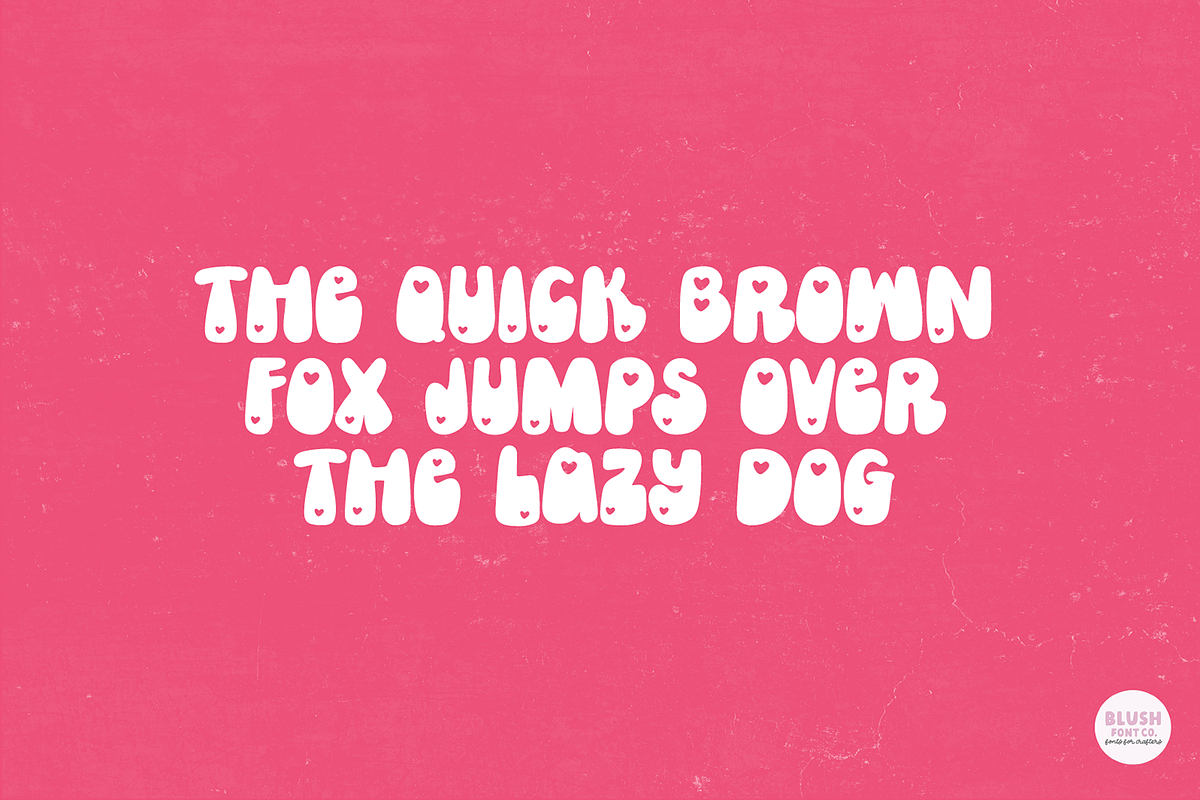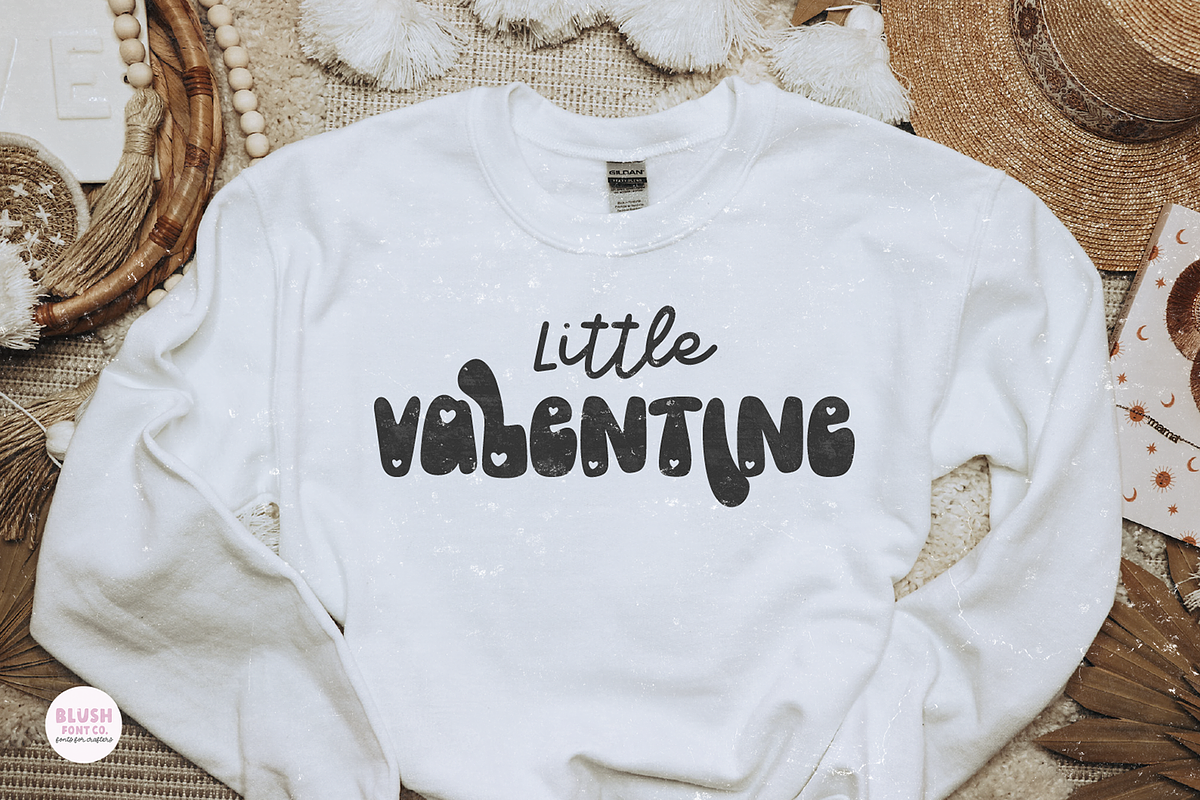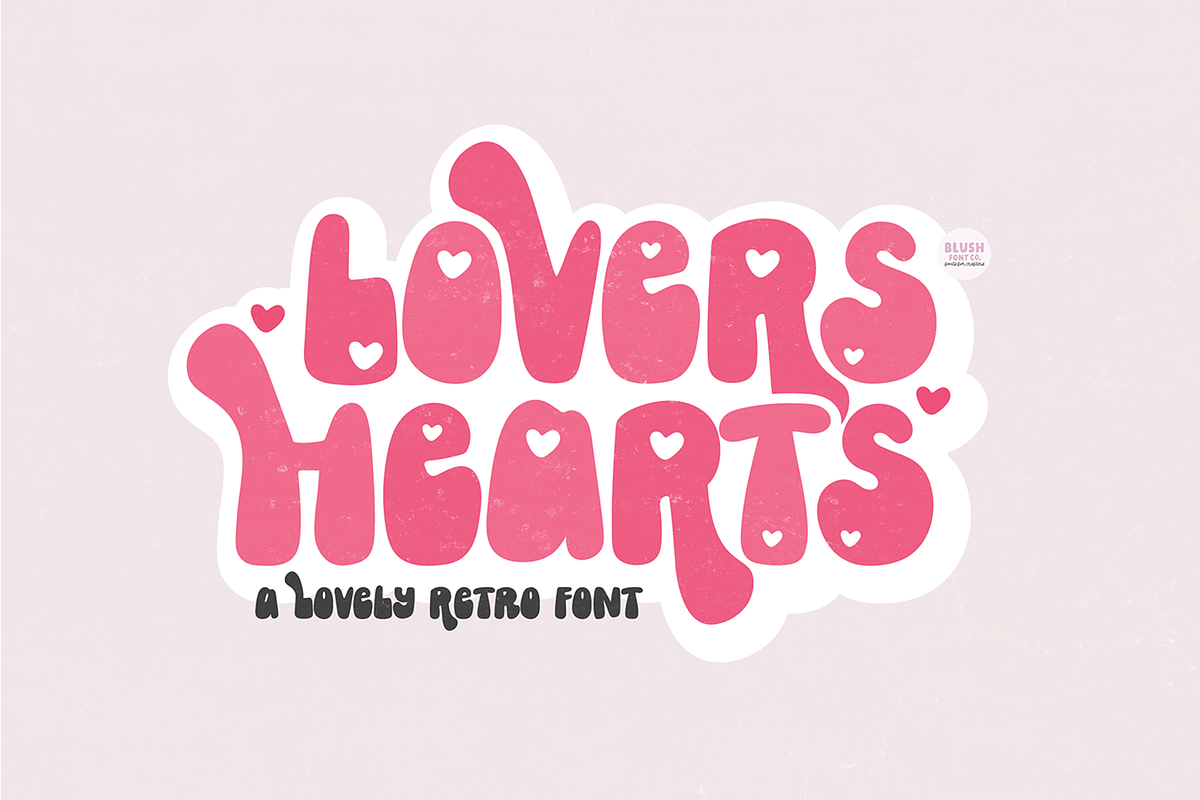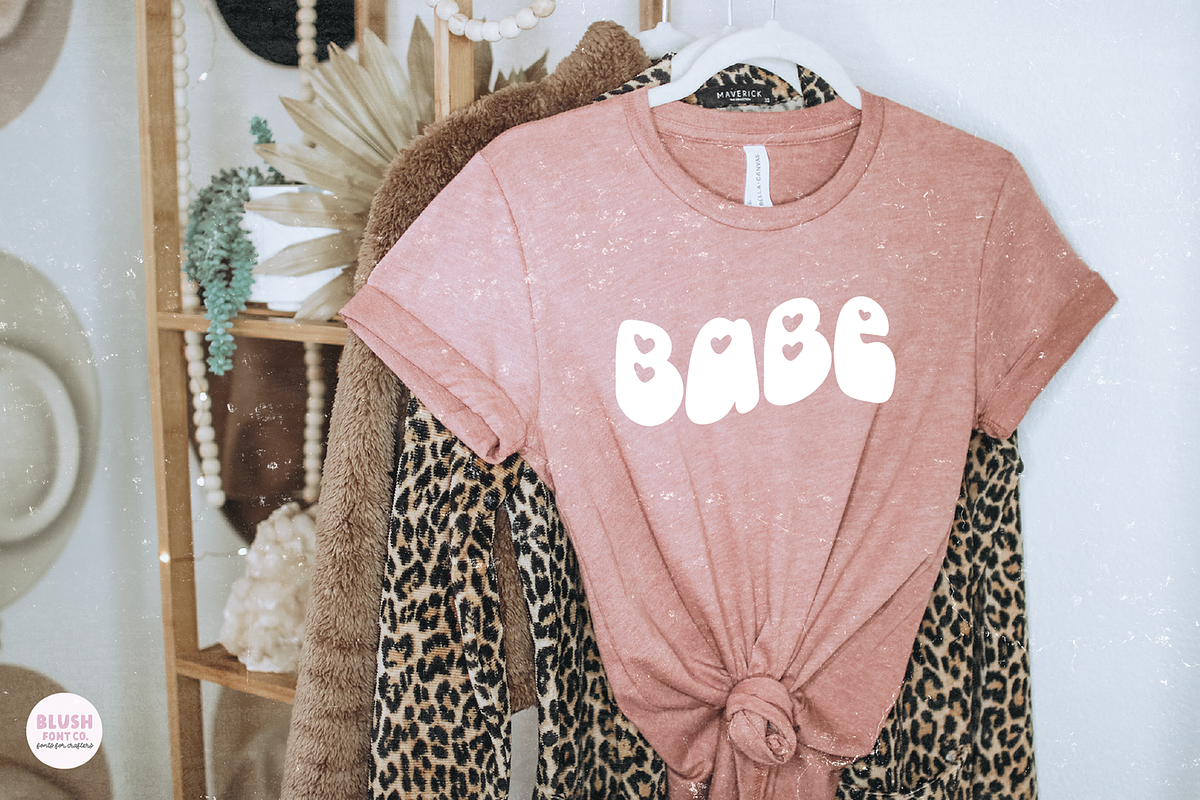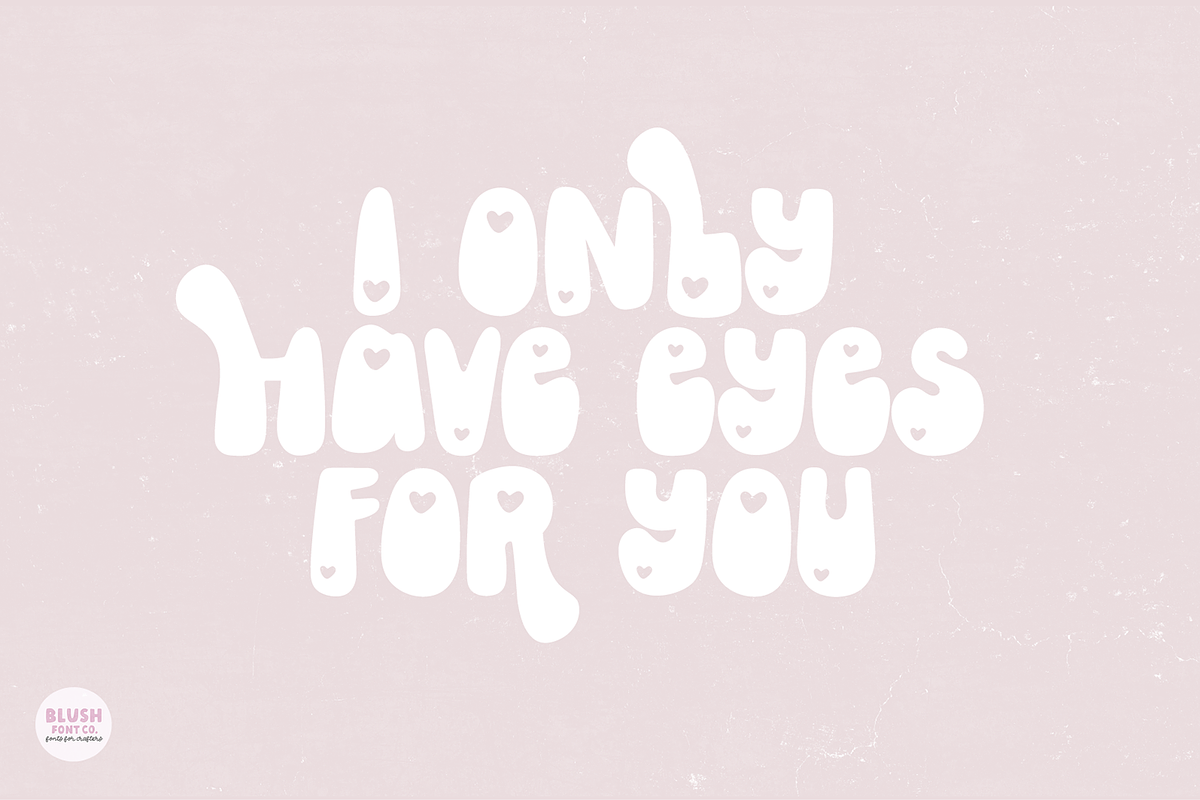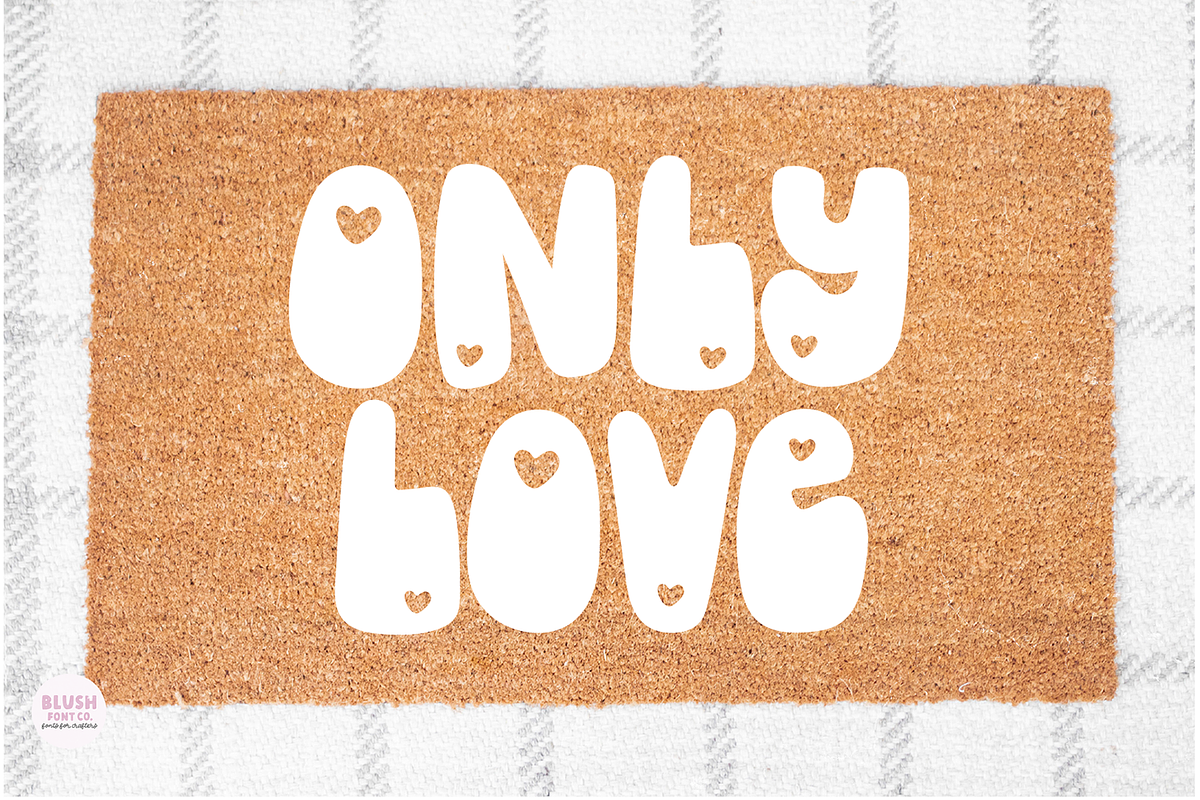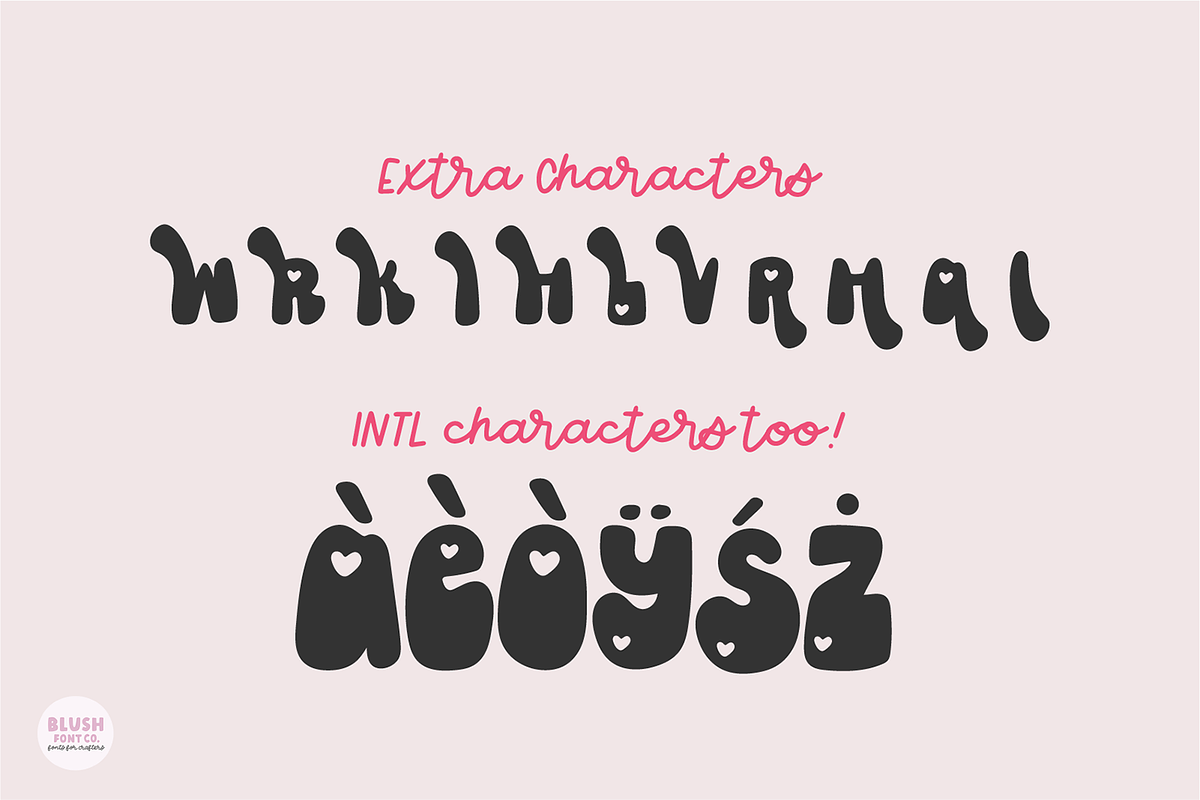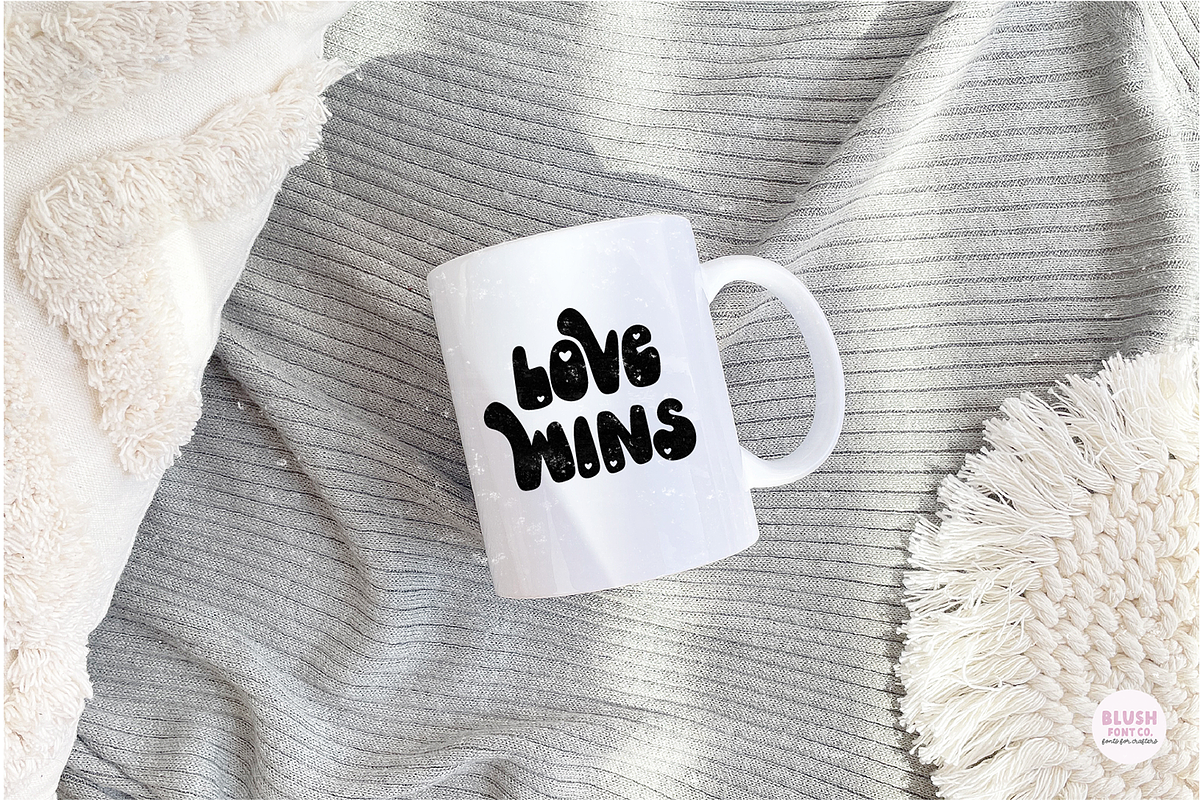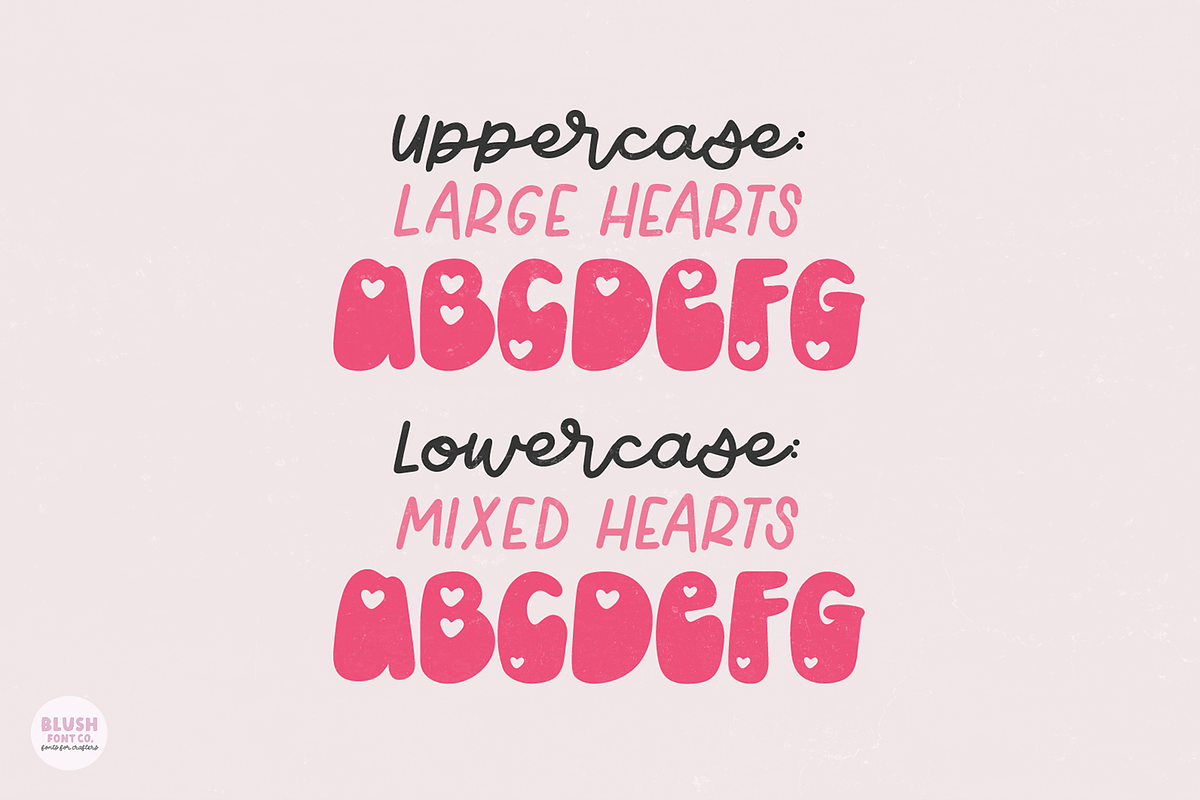
LOVERS HEARTS a Retro Valentine Font
"Lovers Hearts" a Valentine's Day Retro Font with Hearts
Lovers Hearts is a stylish boho font that is perfect for social media or crafty projects. Use it for branding, procreate, crafts for decor, invitations, and more! This font includes all caps glyphs, numbers, basic punctuation marks, intl characters (including Polish), and stylish extra characters.